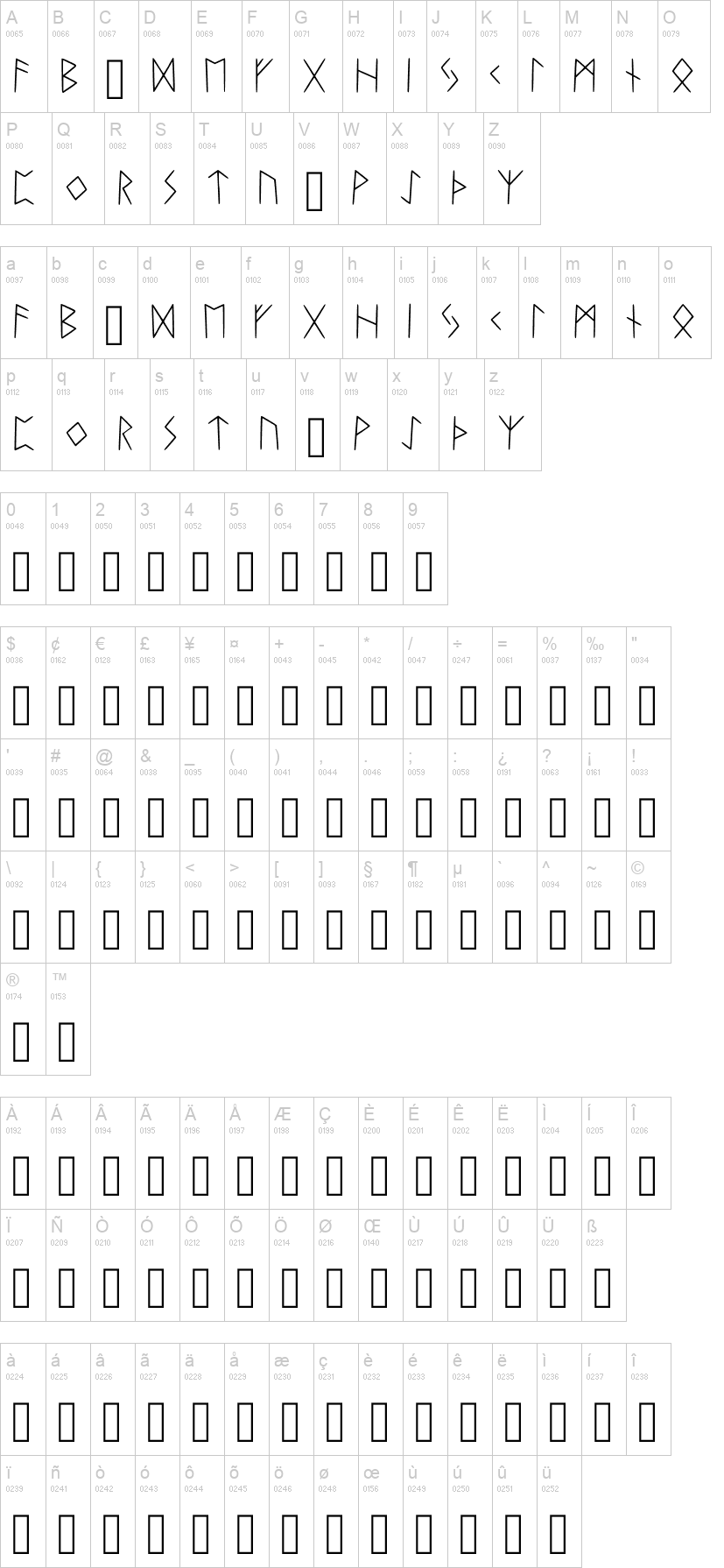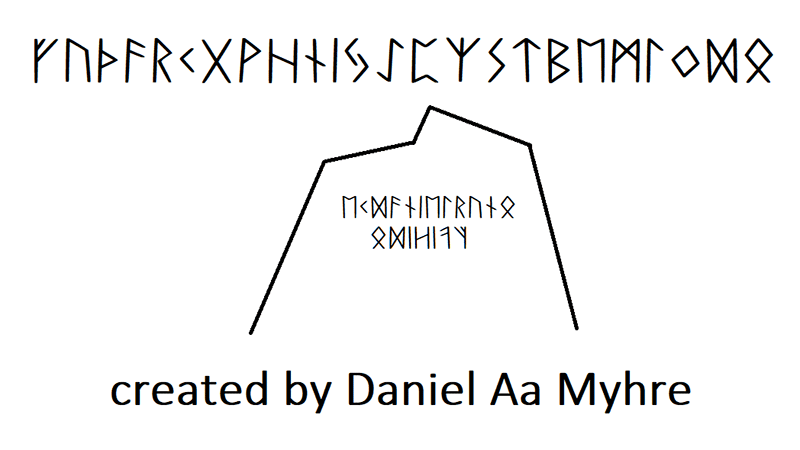
Note of the authorThis is a quick elder-fuþark font i made,
The elder-fuþark was an alphabet used by early germanic peoples from roughly 0-800 AD, later alphabets found among the anglo-frisians and the norse peoples are decendants from the elder-fuþark. The origins of the elder-fuþark are still uncertain, but there are similarities between the other alphabets of europe for example the greek alphabets, the roman alphabet, alpine alphabets etc.
Elder-fuþark consists of straight lines and shapes which made it easy to carve into for example stone or wood.